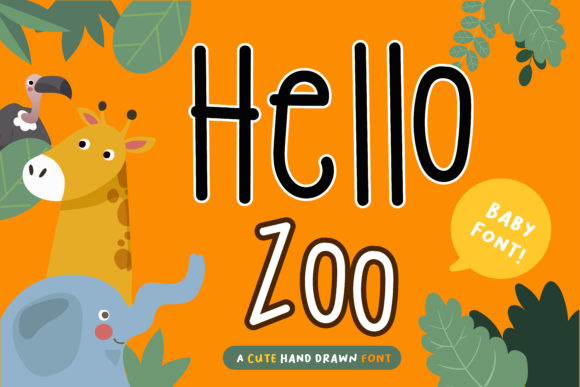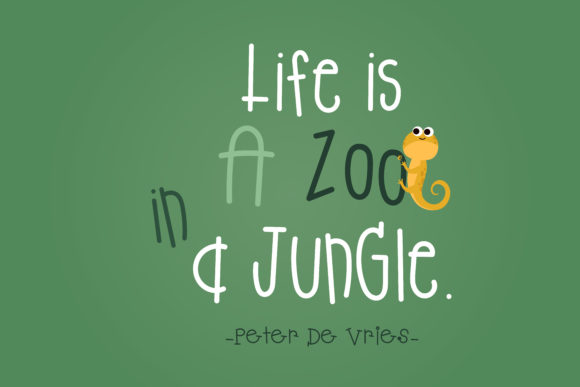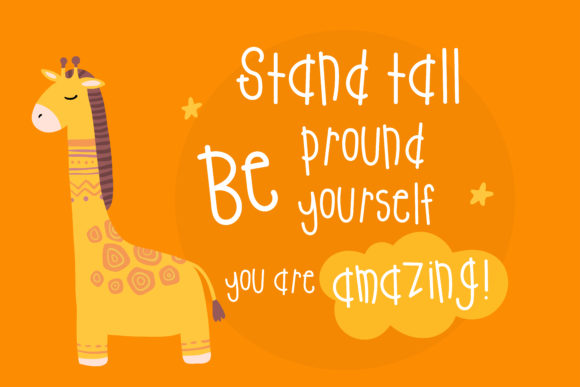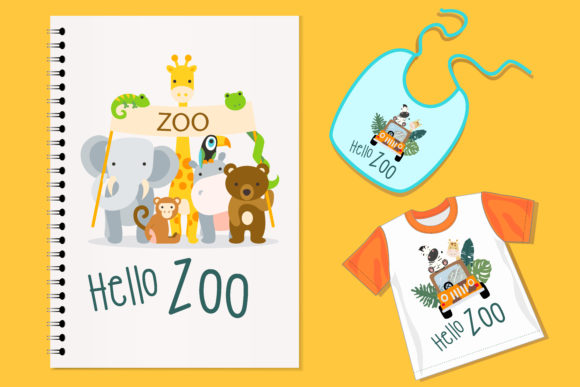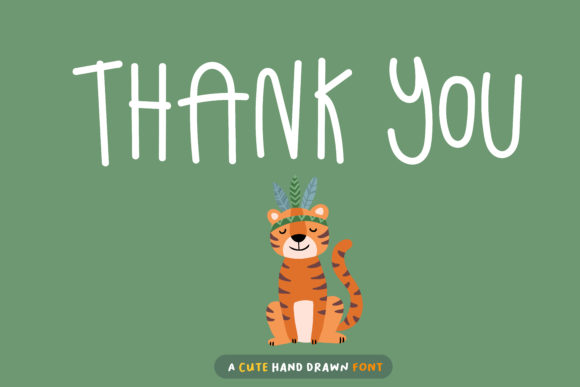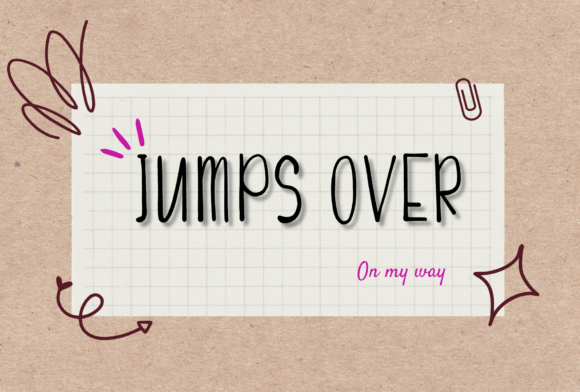
Hello Zoo Font
About Hello Zoo Font
Are you looking for a cute hand written font for your project?
Hello Zoo is perfect for children greeting cards, t-shirts, fashion artworks or just play around.